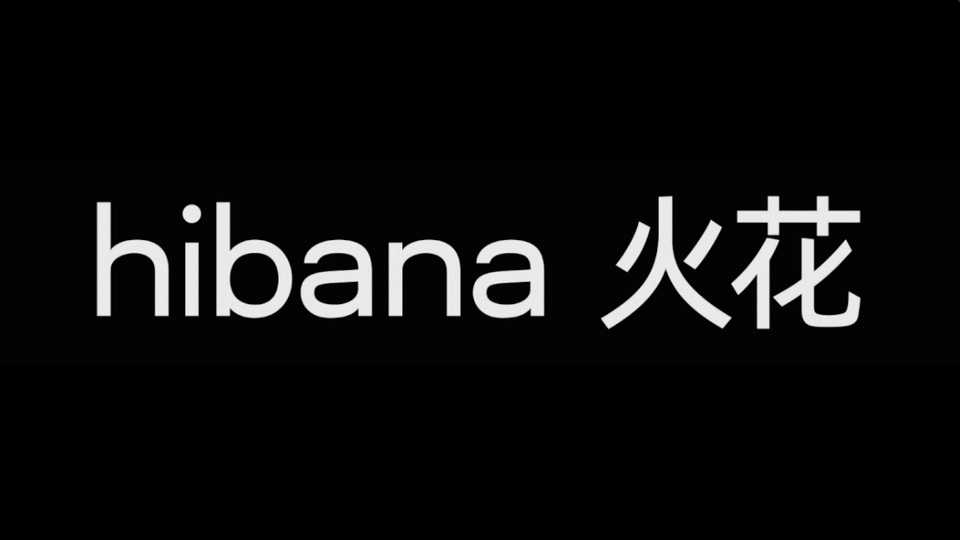
Download Hibana font, a versatile sans serif typeface committed to support all languages in the world. Hibana is a contemporary font that works great both for text and display use.
Designer: Shichao Yang